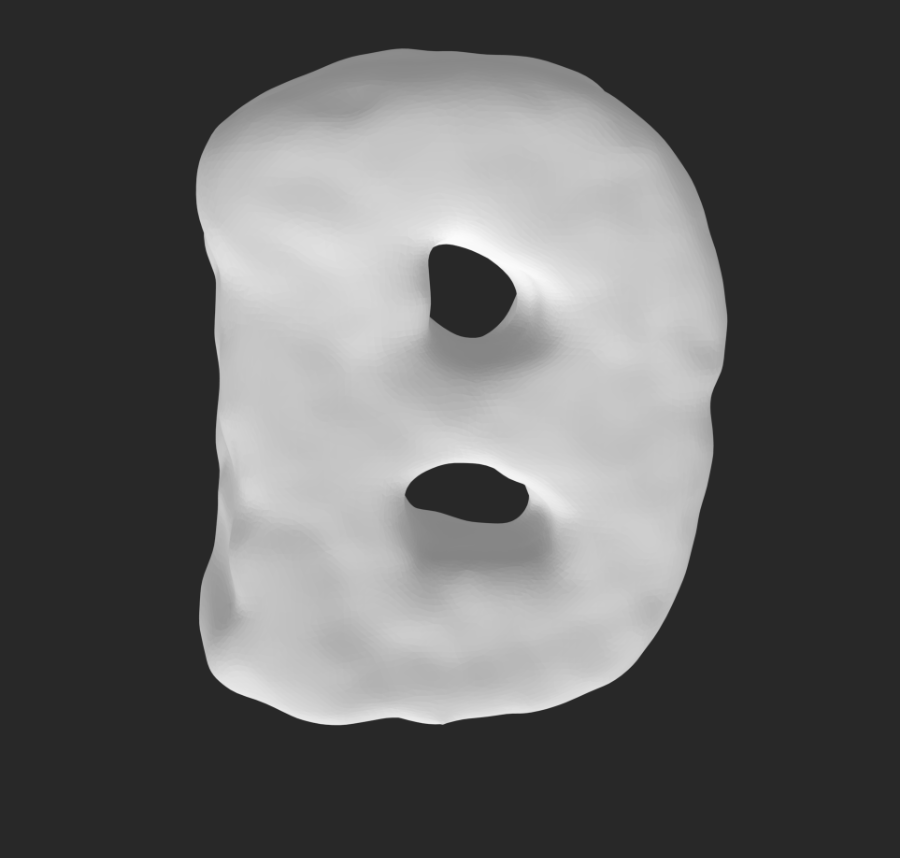
Alphabits™ Archival Project
Marla Kassanoff & Joel Swanson
Inspired by the discontinuation of Alphabits™ cereal in May of 2021, this archival project seeks to document the breakfast cereal by 3D scanning and averaging the industrially produced letterforms for one of the few remaining boxes of the cereal. This dimensional typeface will then be used in an augmented reality installation that places viewers within a virtual bowl of cereal.